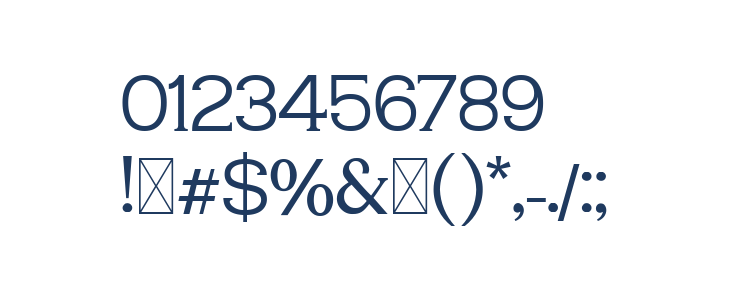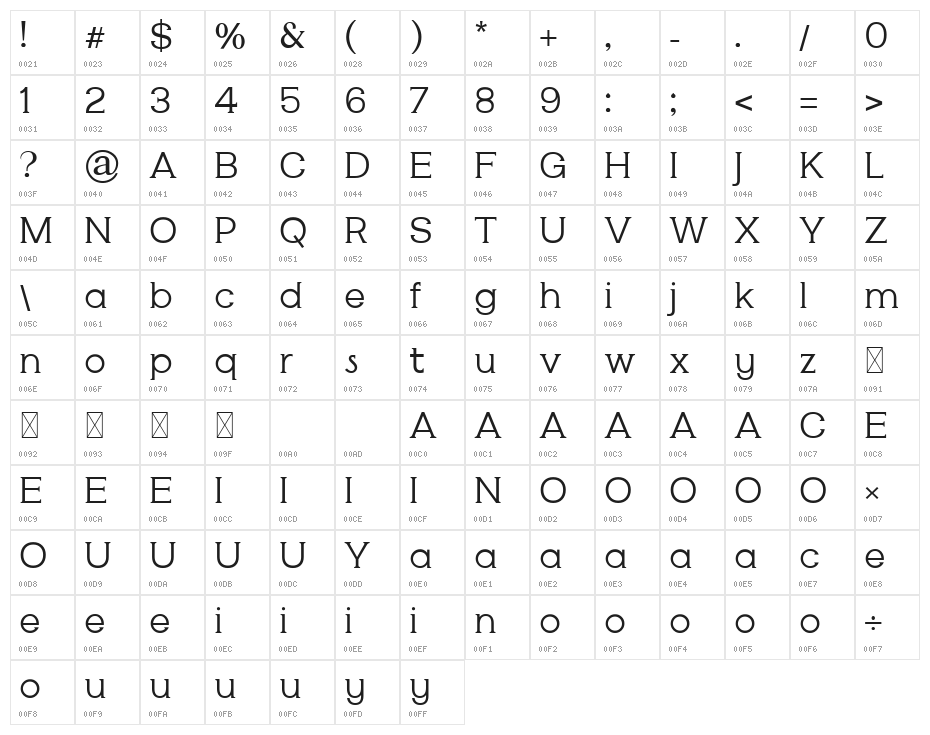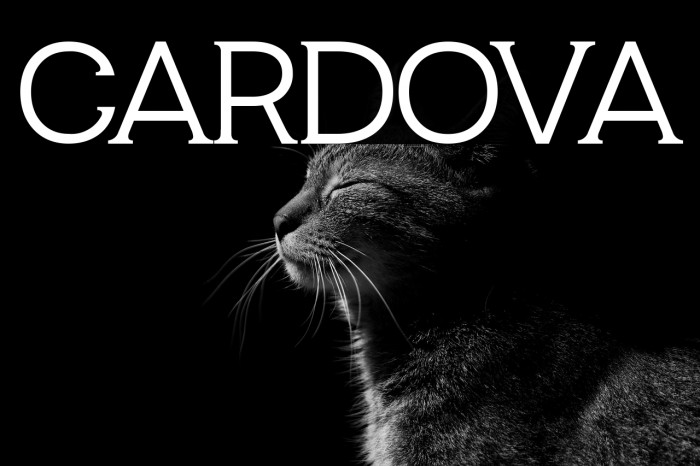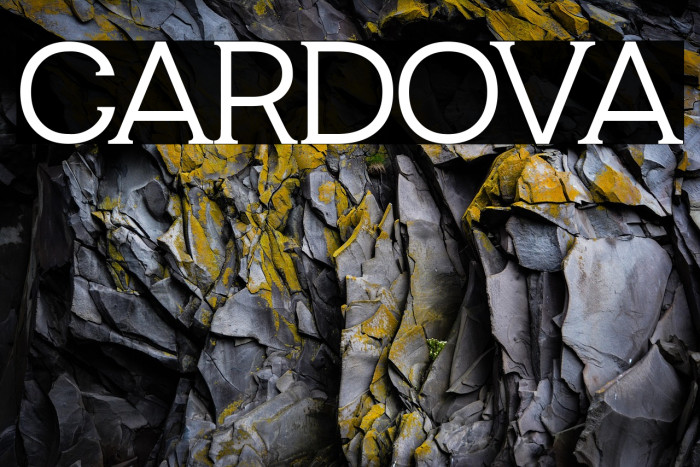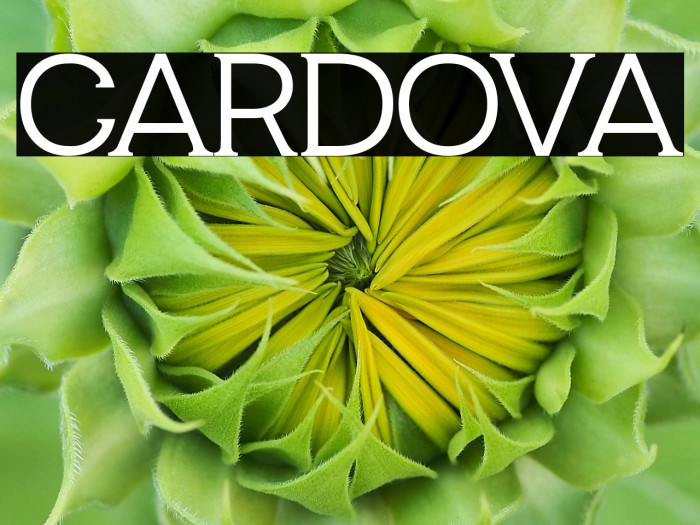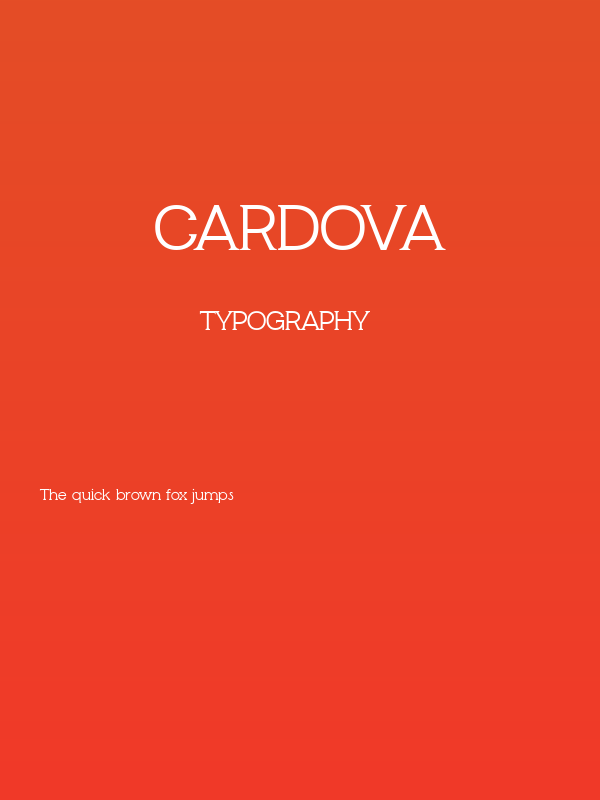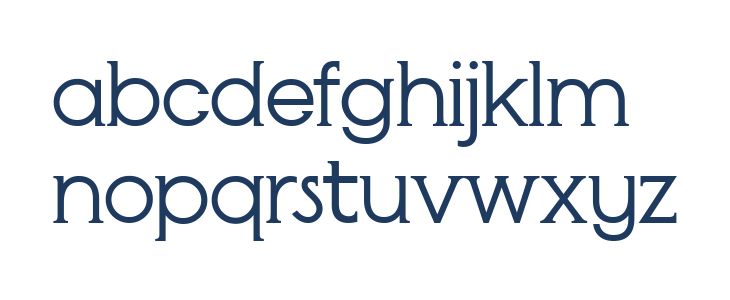
CARDOVA Font
CARDOVA Description
This font features a clean and modern design with a geometric structure. The characters are well-balanced, with a consistent stroke width that gives it a uniform appearance. The uppercase letters are bold and commanding, while the lowercase letters maintain a friendly and approachable look. The numerals are clear and easy to read, making them suitable for various applications. The special characters are distinct and integrate seamlessly with the rest of the font. Overall, this font exudes a contemporary and professional vibe, making it versatile for both digital and print media.